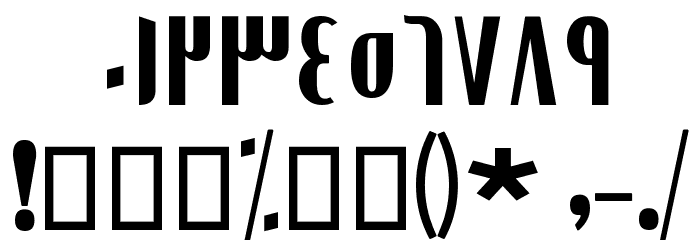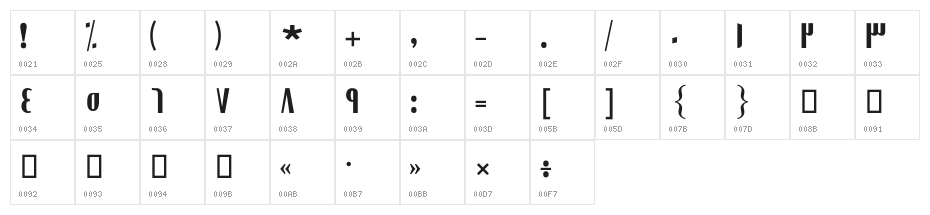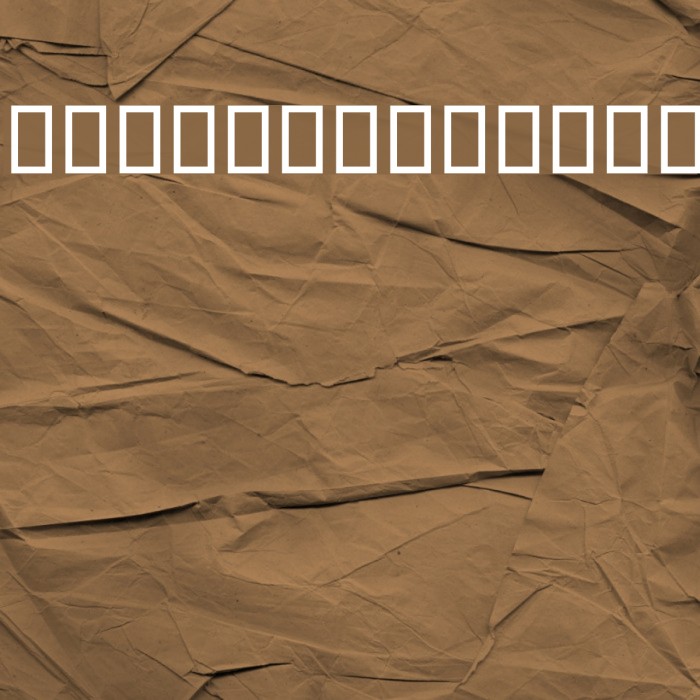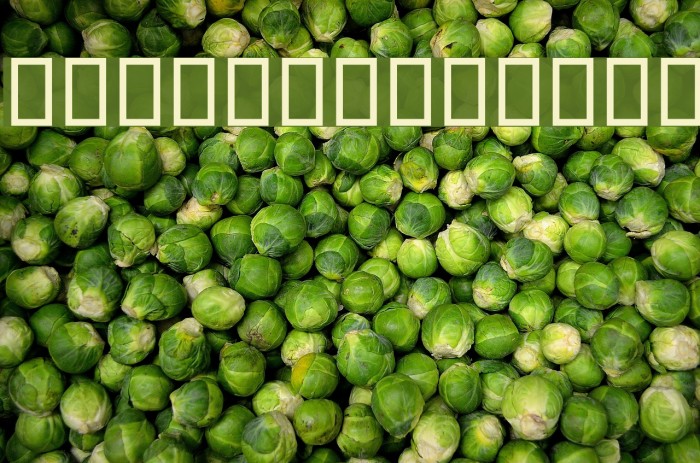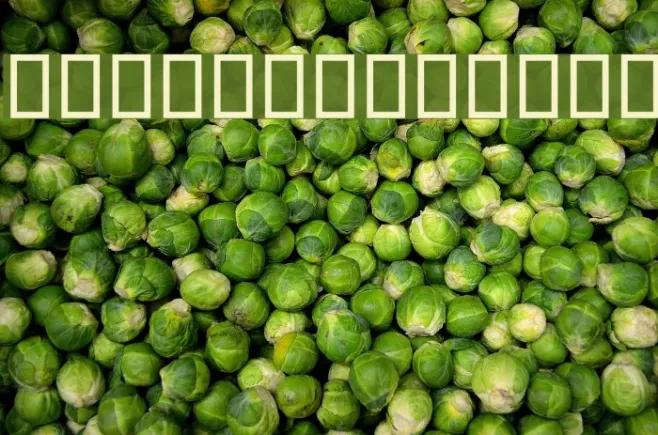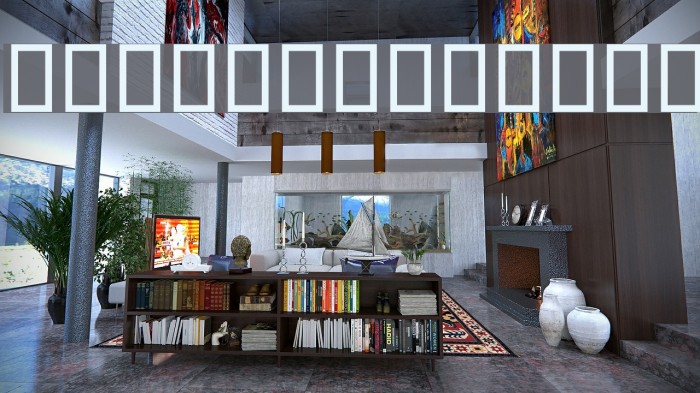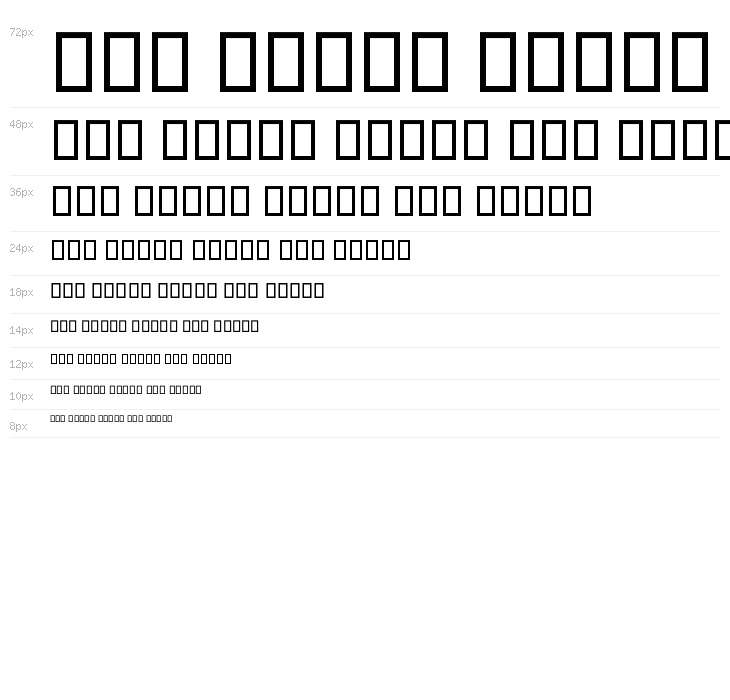
Sadaf Font
Sadaf Description
This font features a bold and modern design with a distinct geometric style. The characters are constructed with clean, sharp lines and a uniform thickness, giving it a strong and impactful appearance. The uppercase letters are particularly striking, with a sense of symmetry and balance that enhances readability. The lowercase letters maintain the same geometric precision, creating a cohesive look across the entire typeface. Numbers and special characters are designed to match the boldness of the alphabet, ensuring consistency throughout. This font's design is ideal for making a statement, with its clear and confident presentation.
SADAF UPPERCASE
SADAF LOWERCASE
SADAF OTHER CHARS
Sadaf